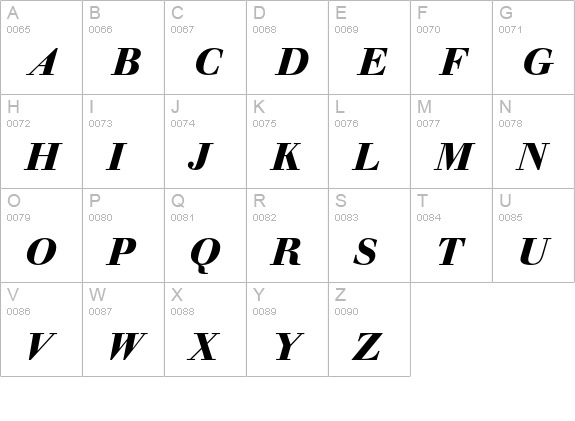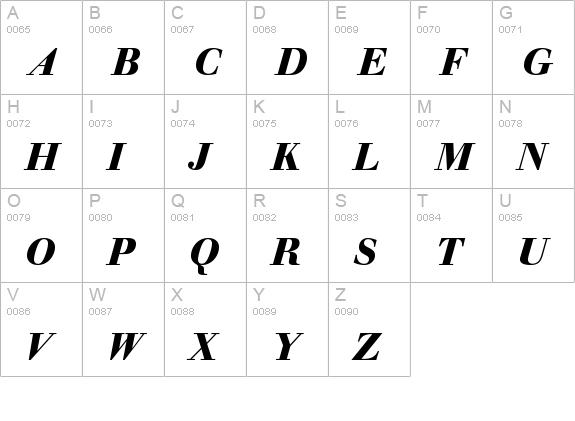
WalbaumEF-BoldItalic Font Details
WalbaumEF-BoldItalic is a sophisticated and elegant typeface that exudes a sense of timeless beauty and refined aesthetics. With its bold and italic design, this font commands attention and adds a touch of sophistication to any project. The graceful curves and delicate strokes of WalbaumEF-BoldItalic create a harmonious balance between strength and grace. It is perfect for adding a touch of elegance to headings, titles, and logos. What makes WalbaumEF-BoldItalic even more appealing is that it is available for free download at FontsMarket.com. This means that you can easily access and utilize this stunning font without any restrictions or limitations. Whether you are designing a high-end fashion magazine, creating stylish invitations, or crafting a luxurious brand identity, WalbaumEF-BoldItalic will elevate your design to new heights. Its versatility allows it to seamlessly blend into various design styles, from classic and traditional to modern and contemporary. The clarity and legibility of WalbaumEF-BoldItalic make it an excellent choice for both print and digital applications. It remains easily readable even at smaller sizes, ensuring that your message is conveyed effectively to your audience. Experience the beauty and versatility of WalbaumEF-BoldItalic today by downloading it for free at FontsMarket.com. Enhance your designs with this exquisite font, and let your creativity shine.